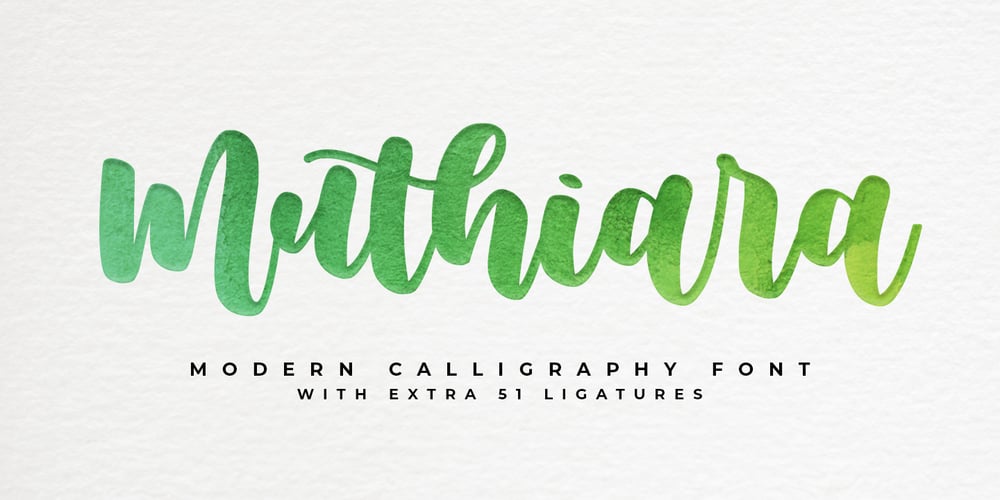
Muthiara Font Family was designed by Abo Daniel and published by Abo Daniel. Muthiara contains 1 styles and family package options. Muthiara is a beautiful script font and perfect for lettering project like cutting vinyl, silhouettes, t-shirt design, mugs, advertisements, book covers, posters, business cards, social media and more. It includes 51 ligatures, support for multiple languages and offers PUA encoding.